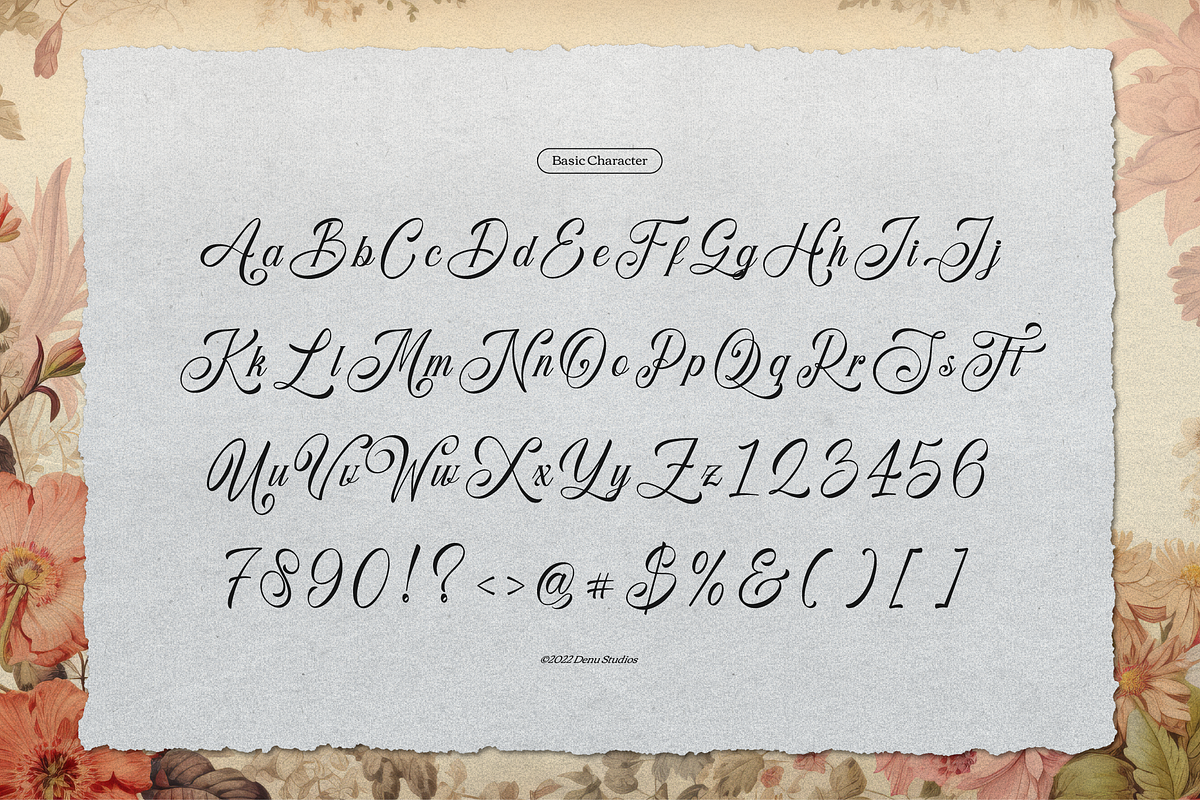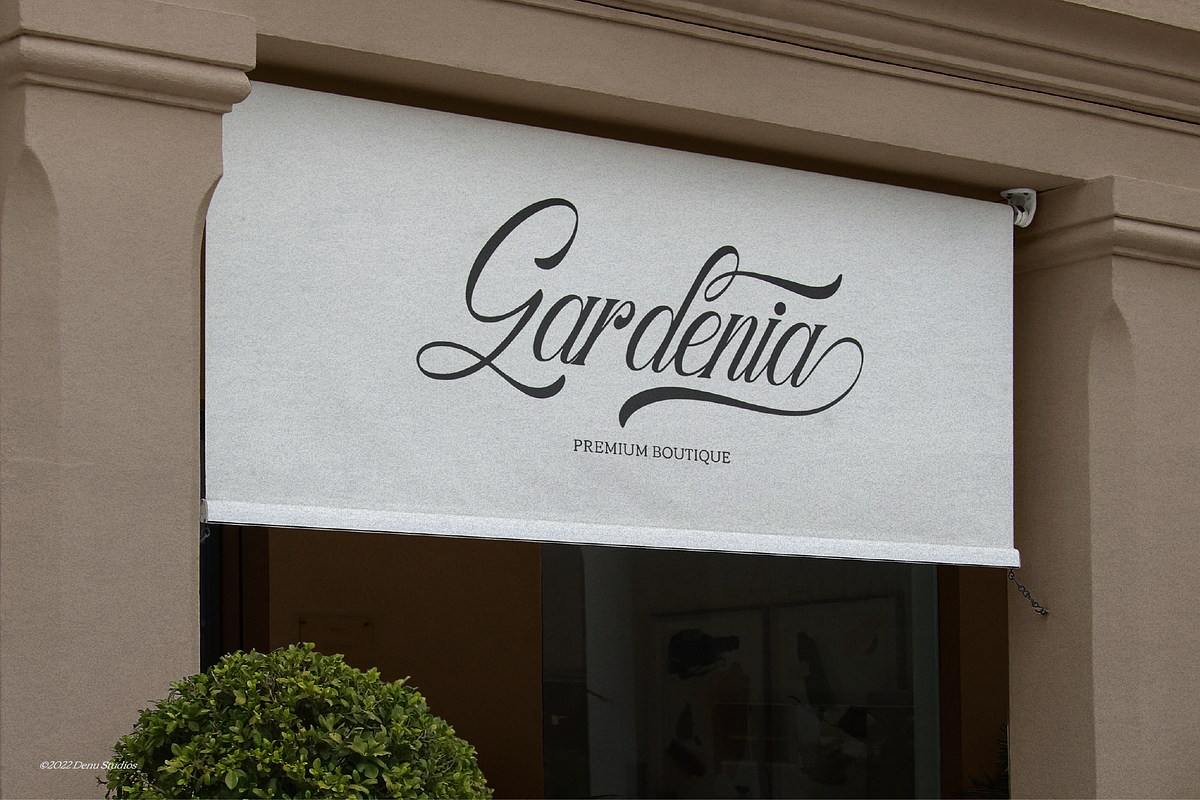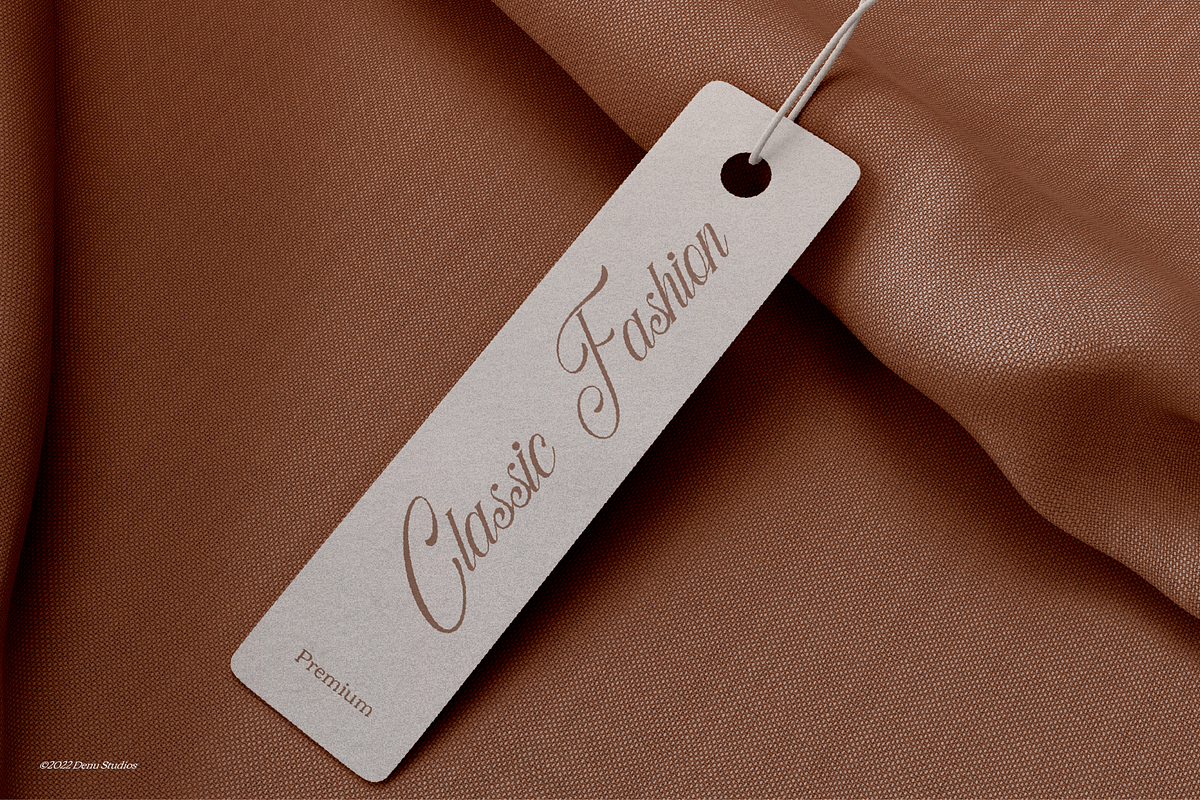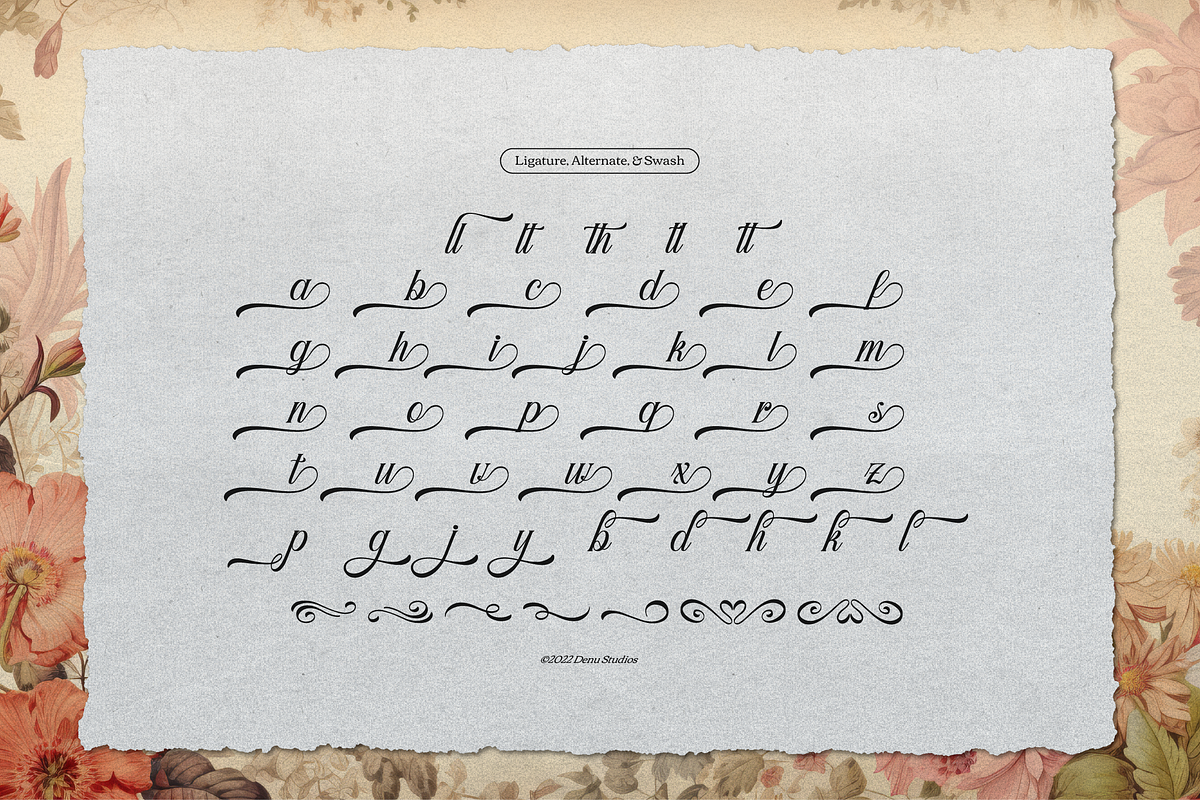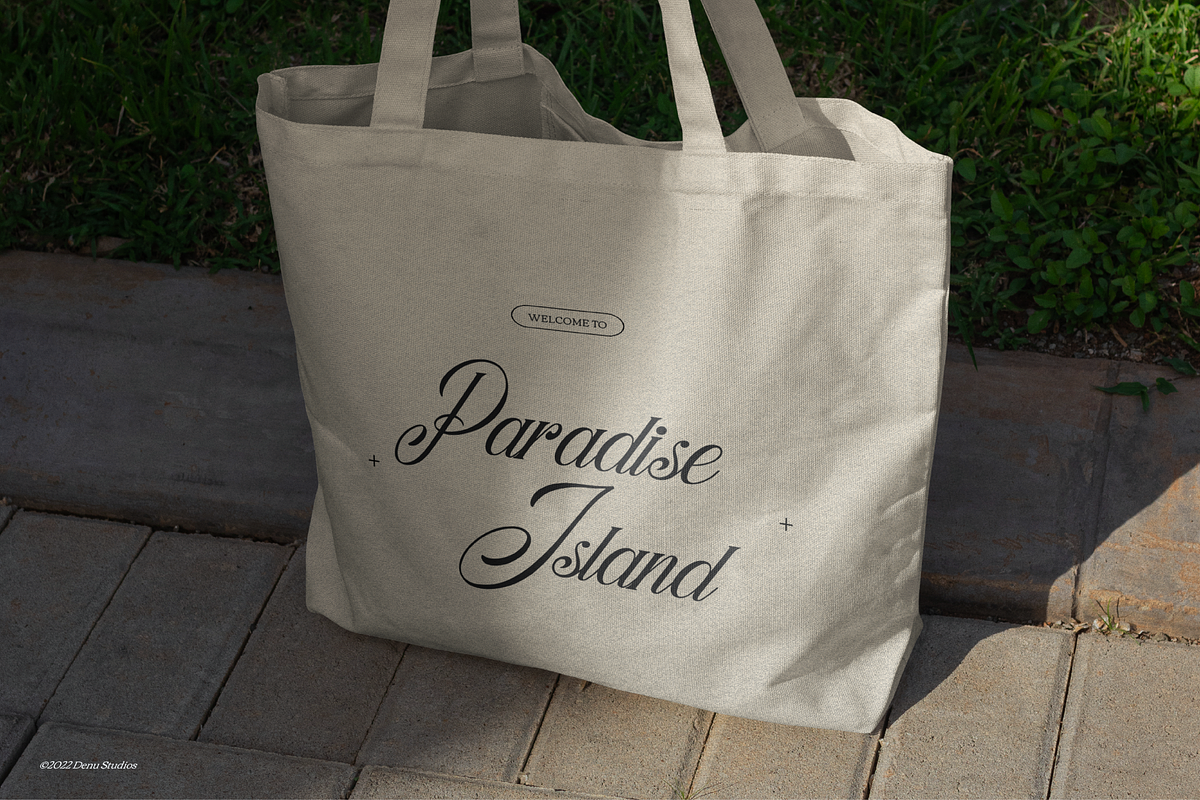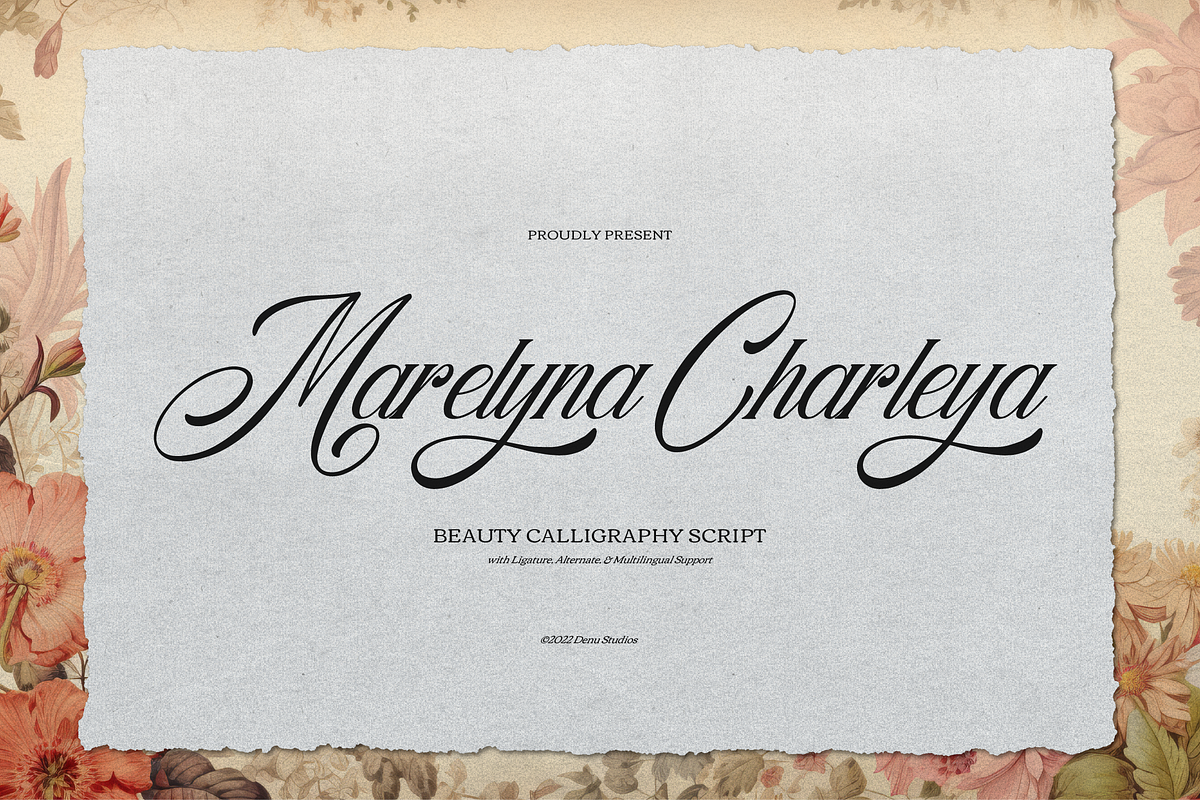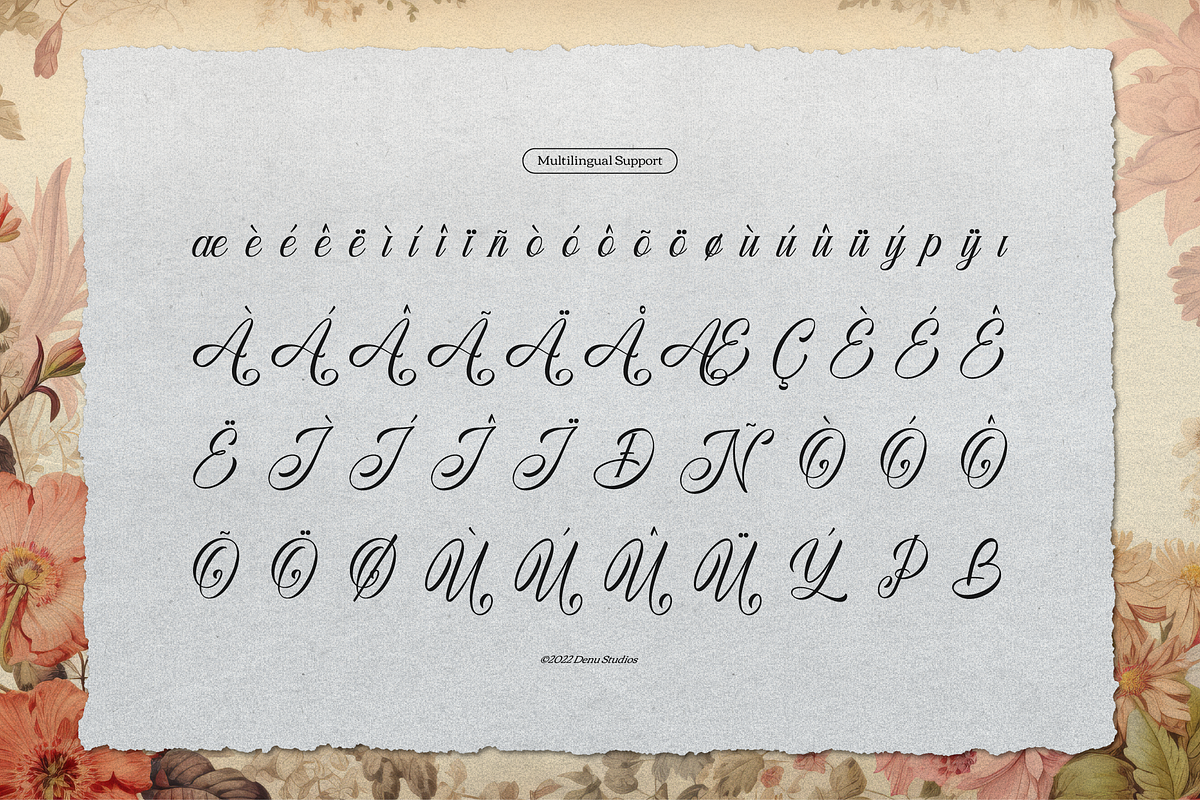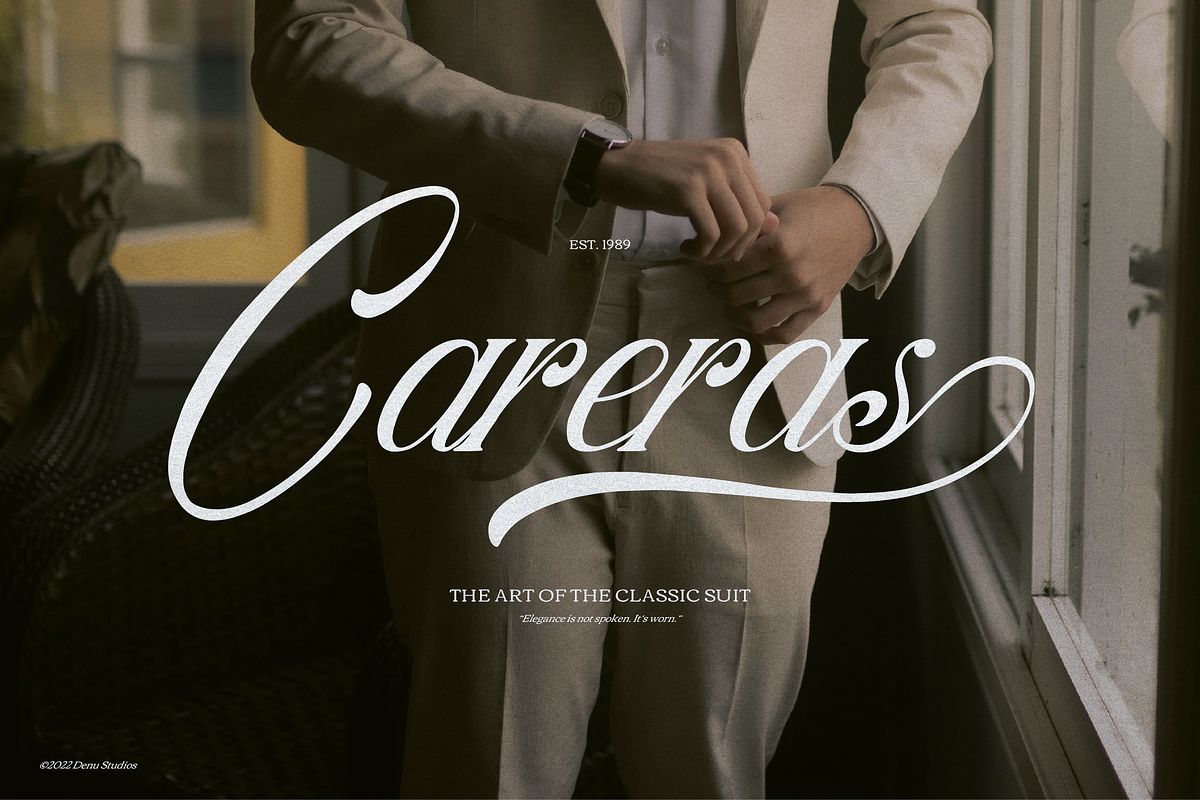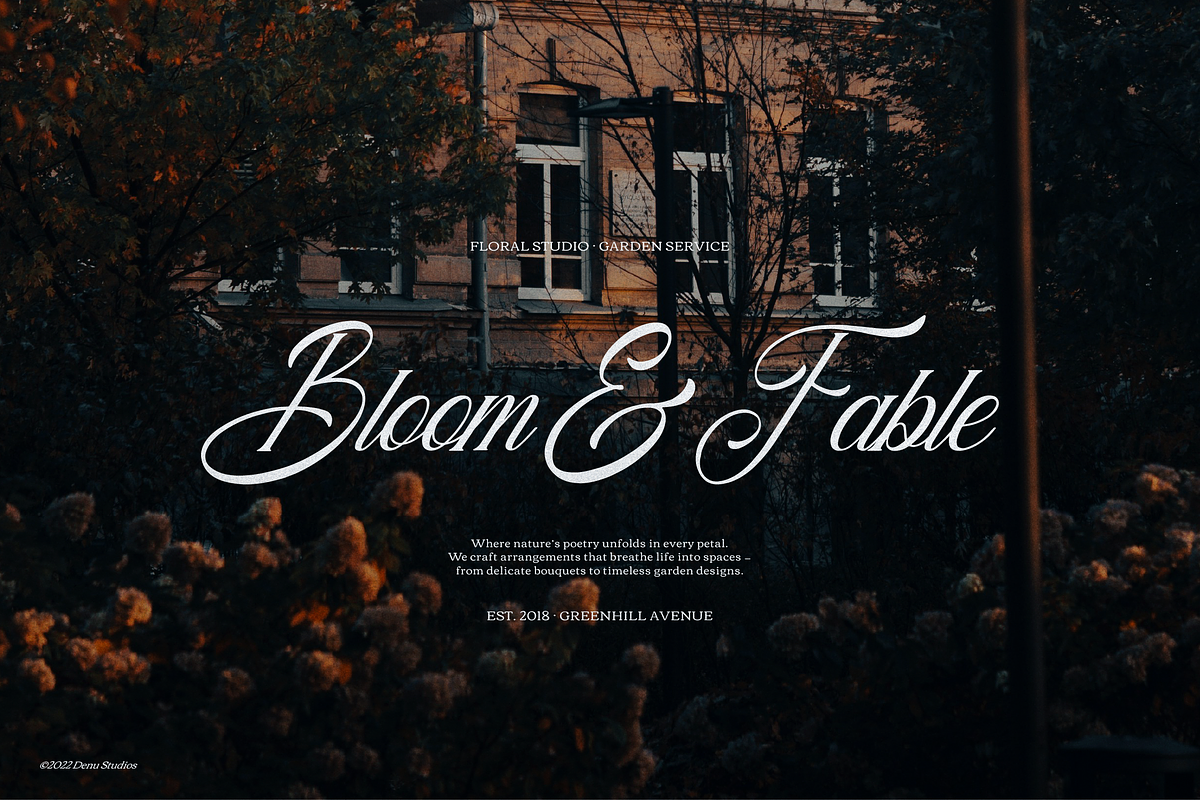
Marelyna Charleya Callighraphy
Marelyna Charleya | Beauty Callighraphy Script, from Denustudios, suitable for any projects such as: logos, branding projects, homeware designs, product packaging, mugs, quotes, posters, shopping bags, t-shirts, book covers, name card, invitation cards, greeting cards, label, photography, watermark, special events, and all your other lovely projects that need a Script taste.